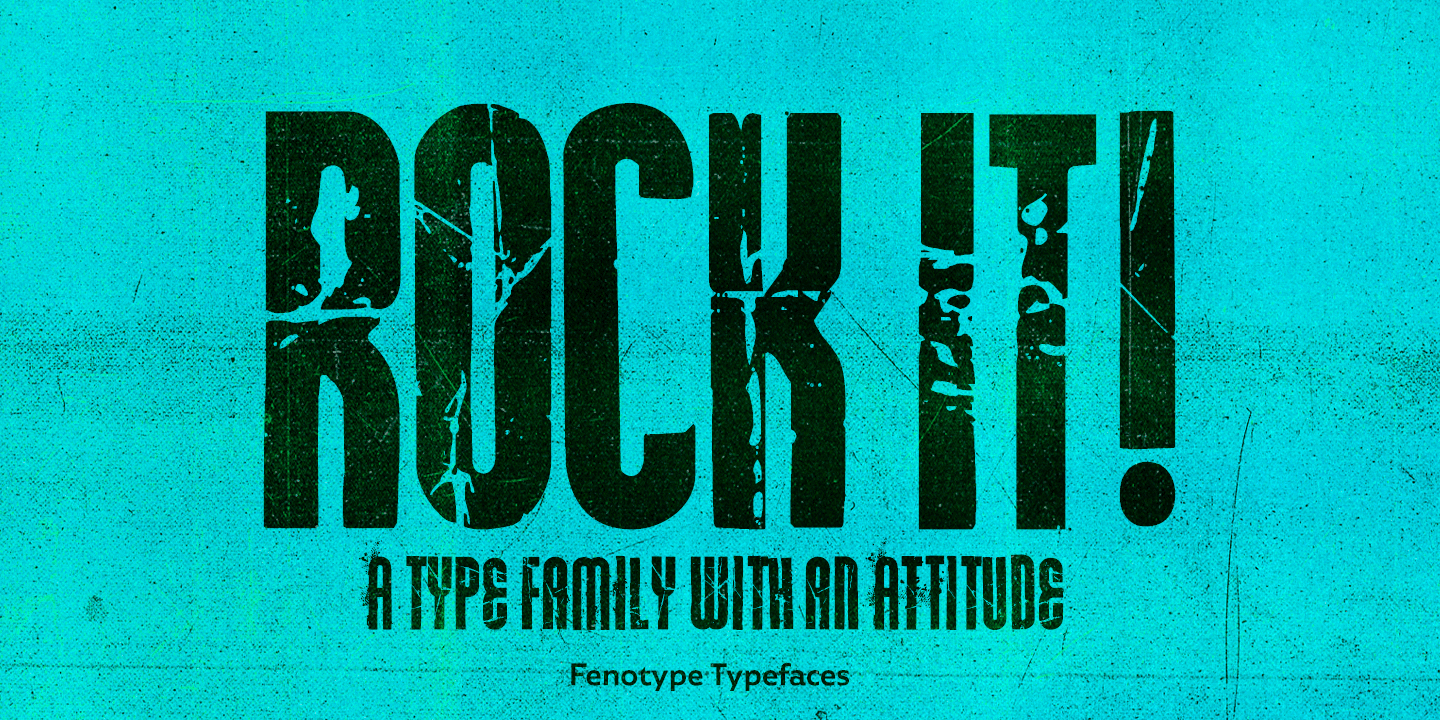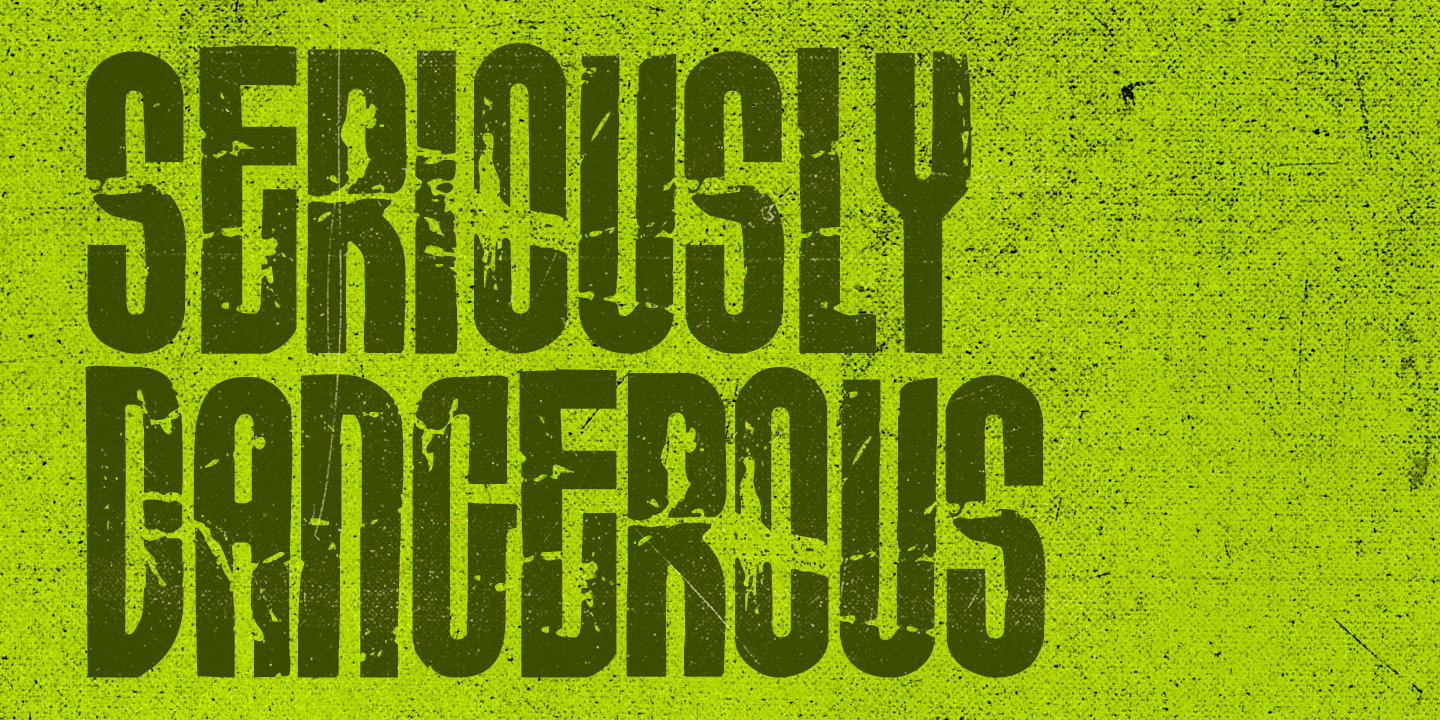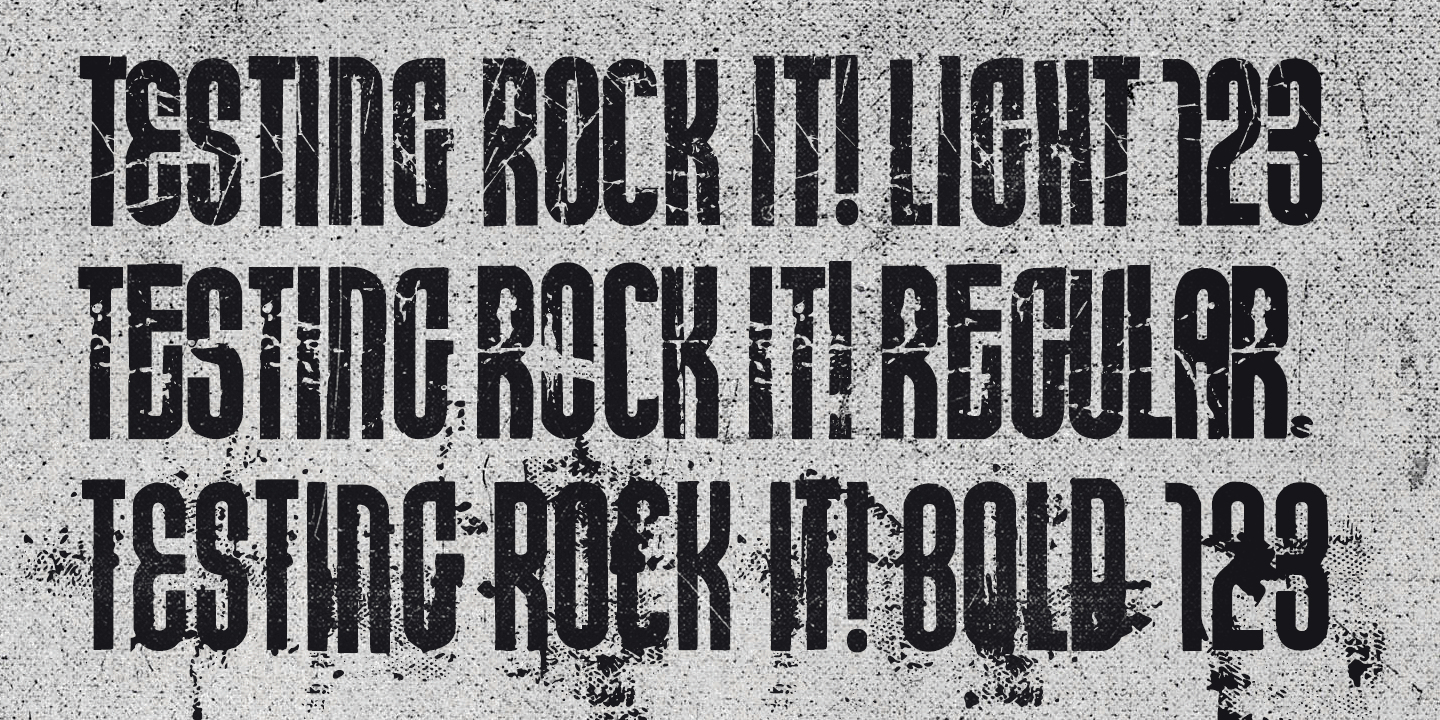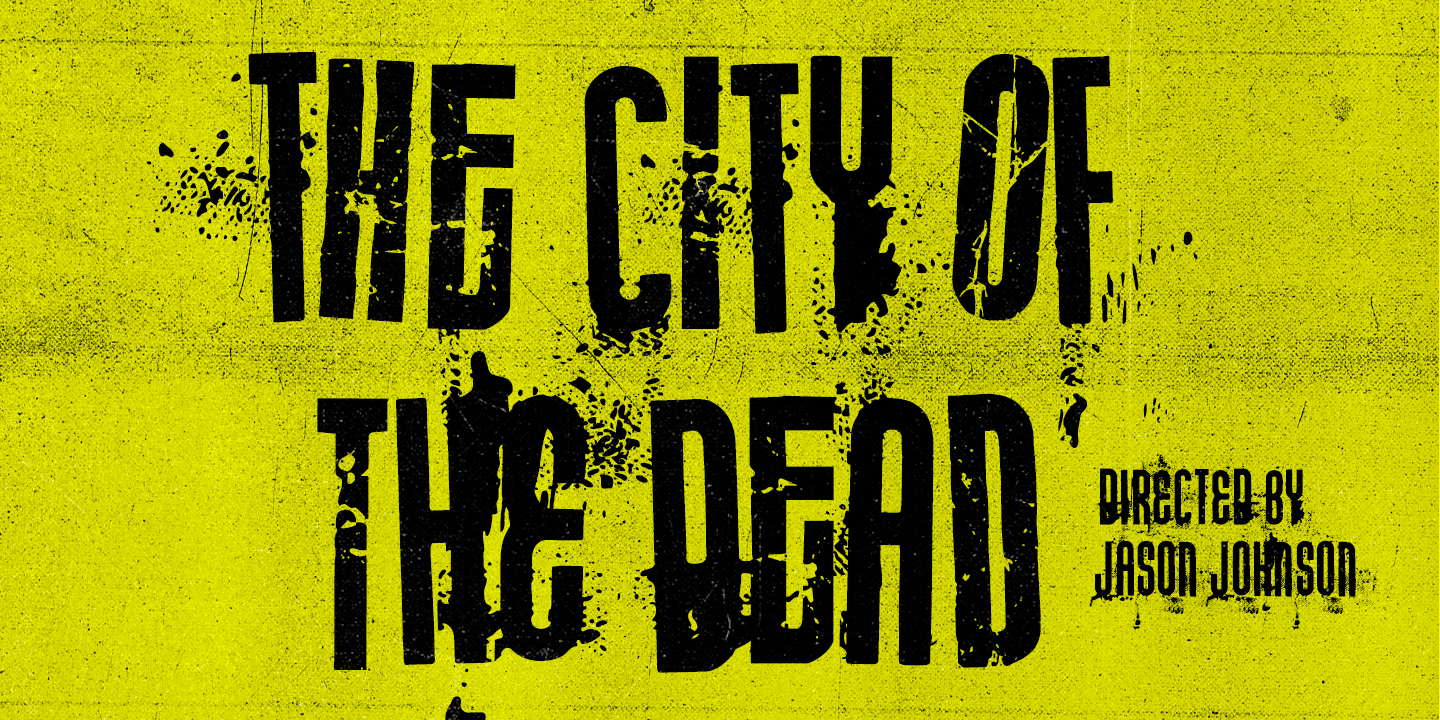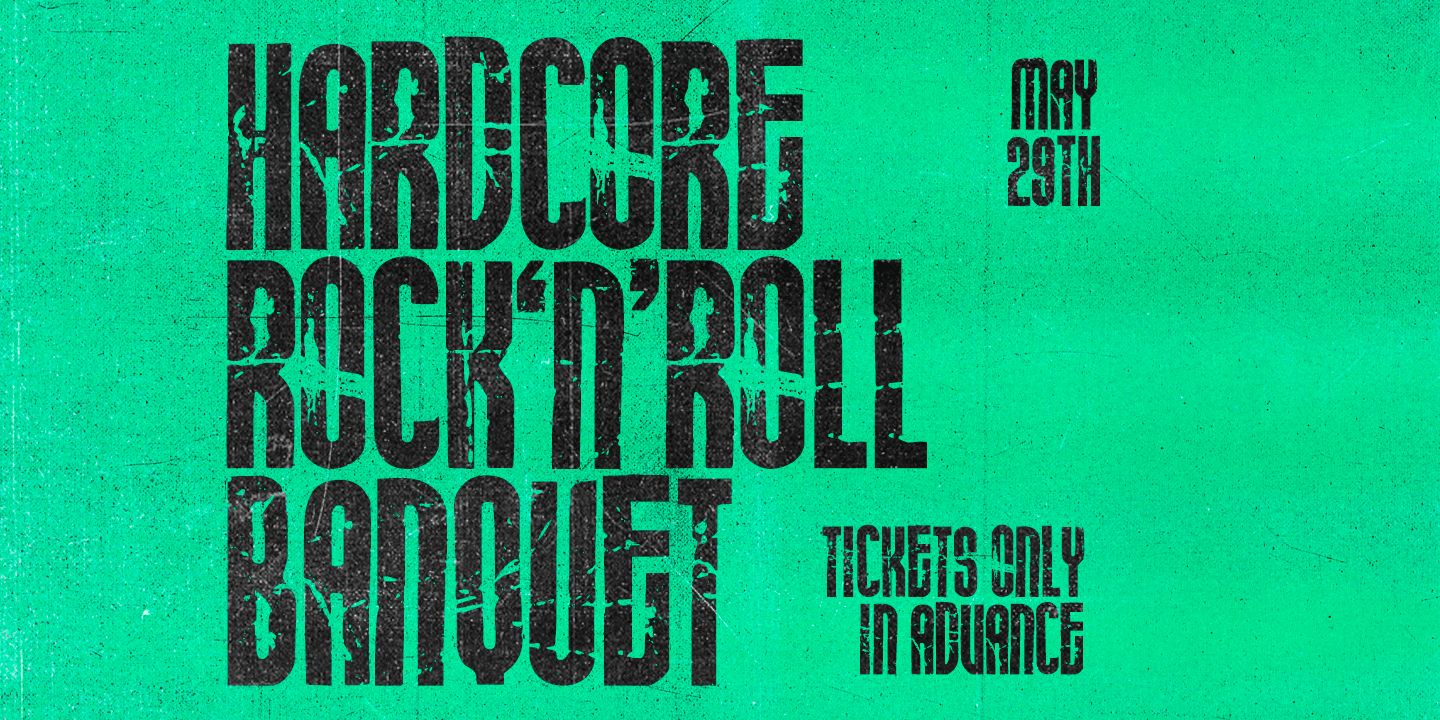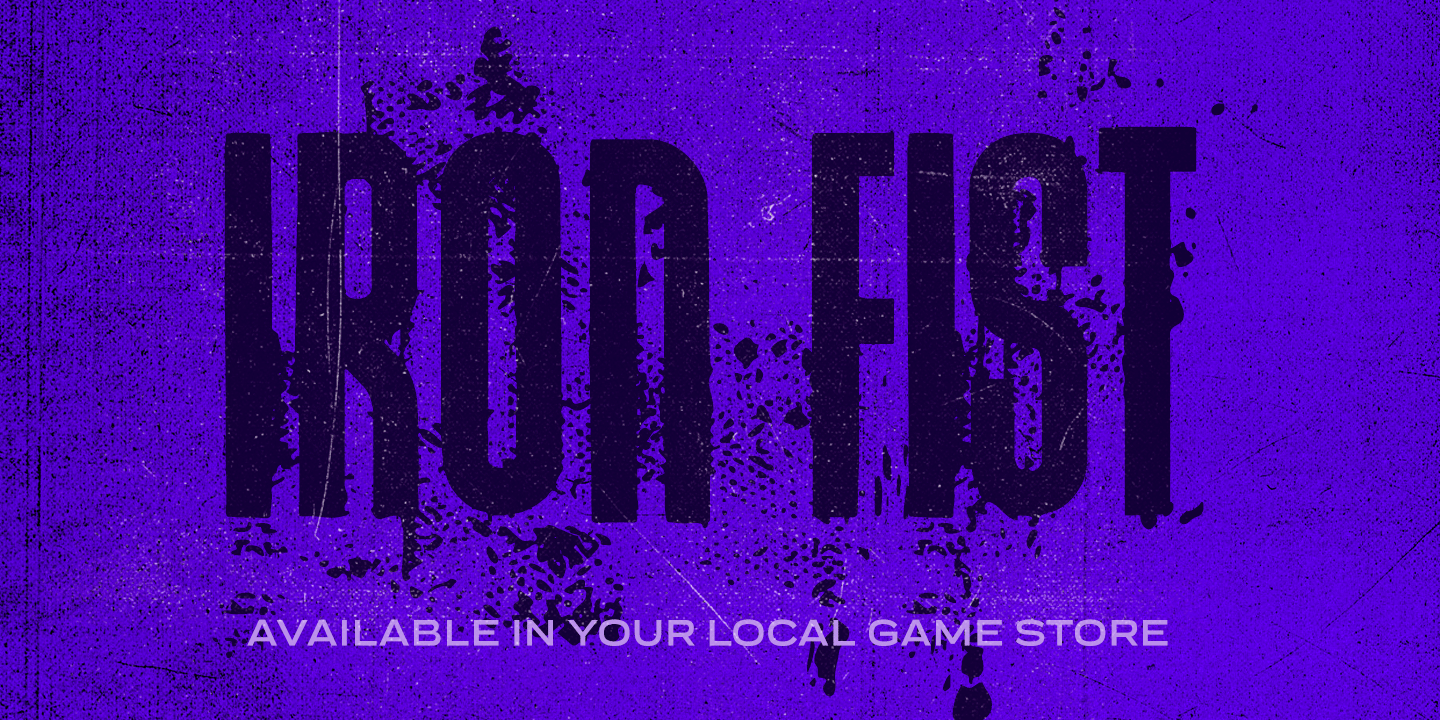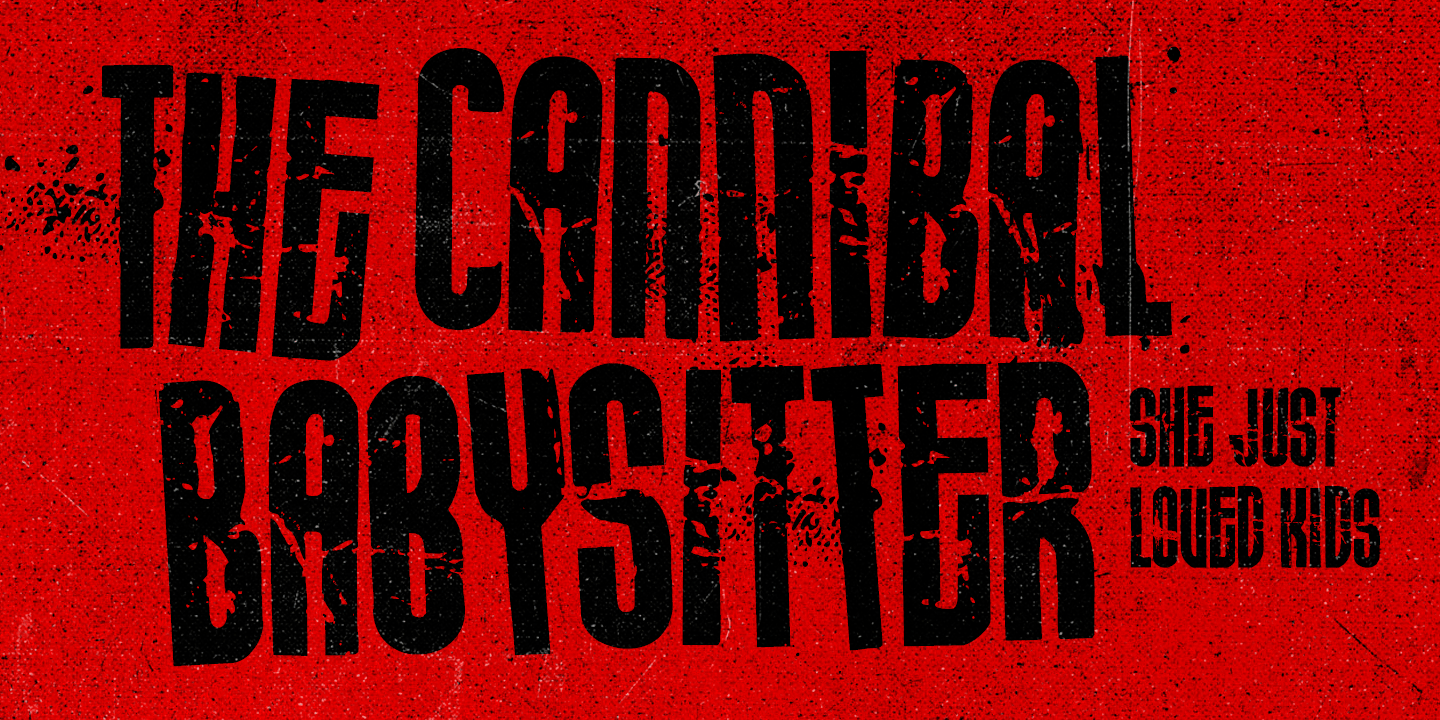
Rock It
Rock It is a distressed graffiti-style display family with a gritty, urban feel and plenty of visual texture. Its rough edges and streetwise attitude give headlines an energetic, worn-in look that feels bold, expressive, and unapologetically loud.
With three styles—Regular, Light, and Bold—this family gives you a small but flexible range for building layered, high-impact typography. It’s a strong fit for posters, music graphics, apparel, branding, and other display work that calls for a raw, handmade edge rather than a polished finish.
Created by Fenotype, this set is especially appealing for projects that lean into distressed, special-effect, and urban-inspired lettering. Use it when you want type that feels immediate, tactile, and full of character.